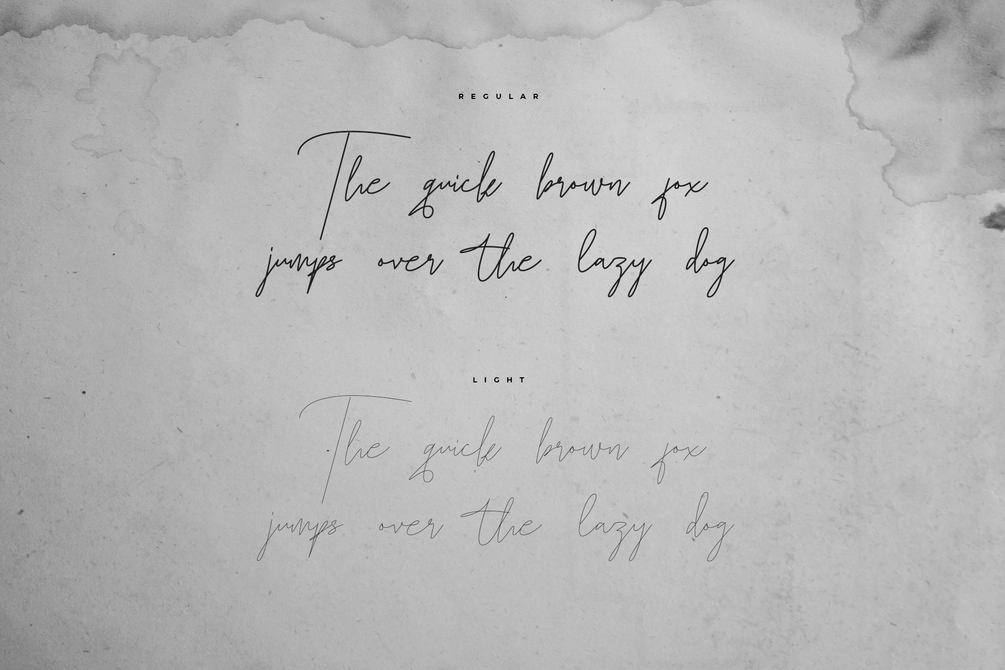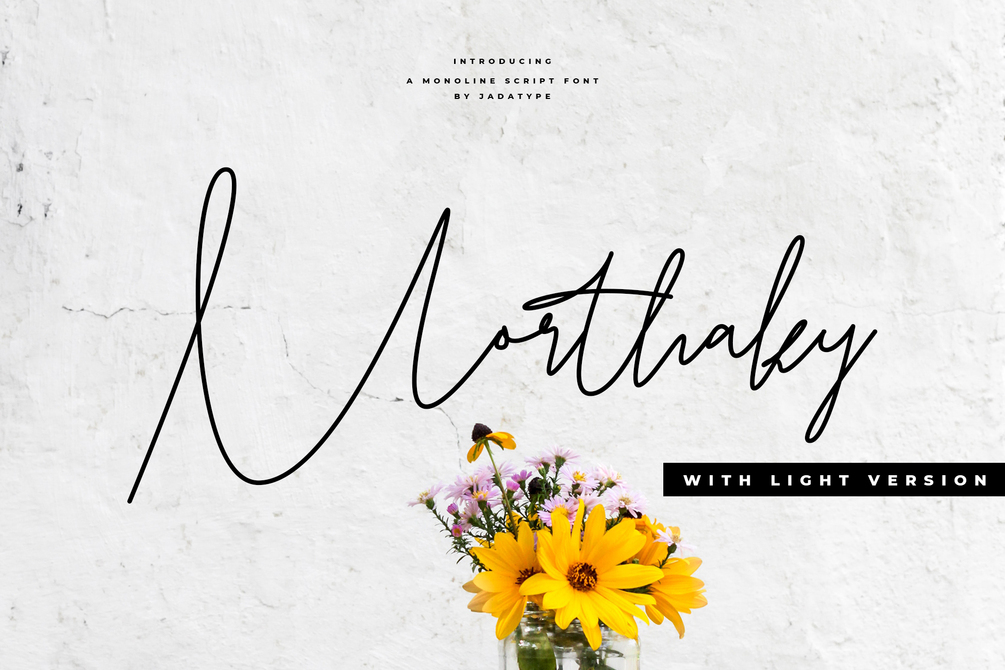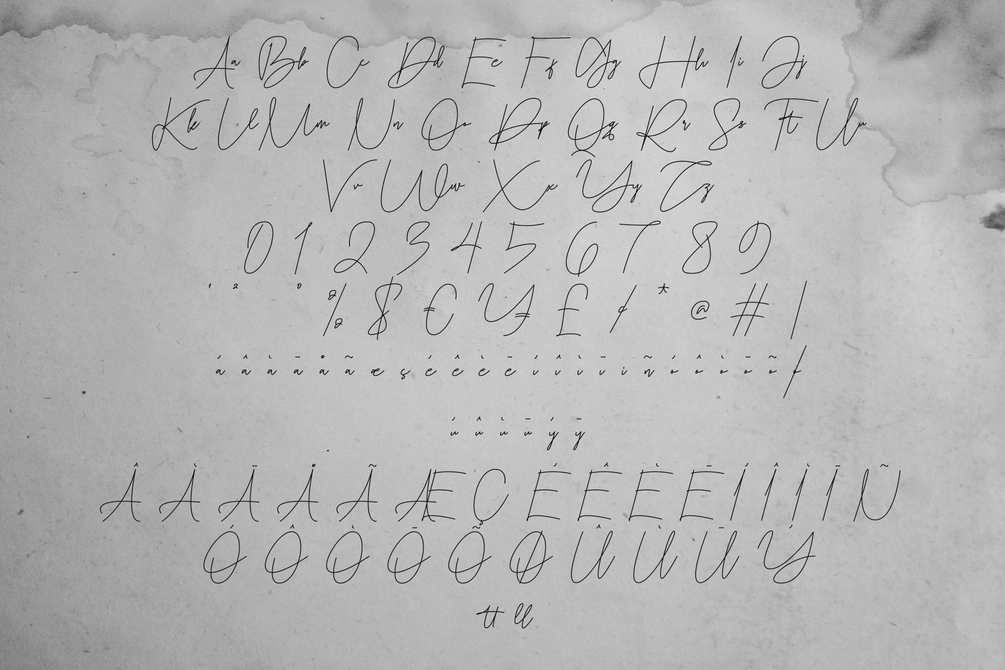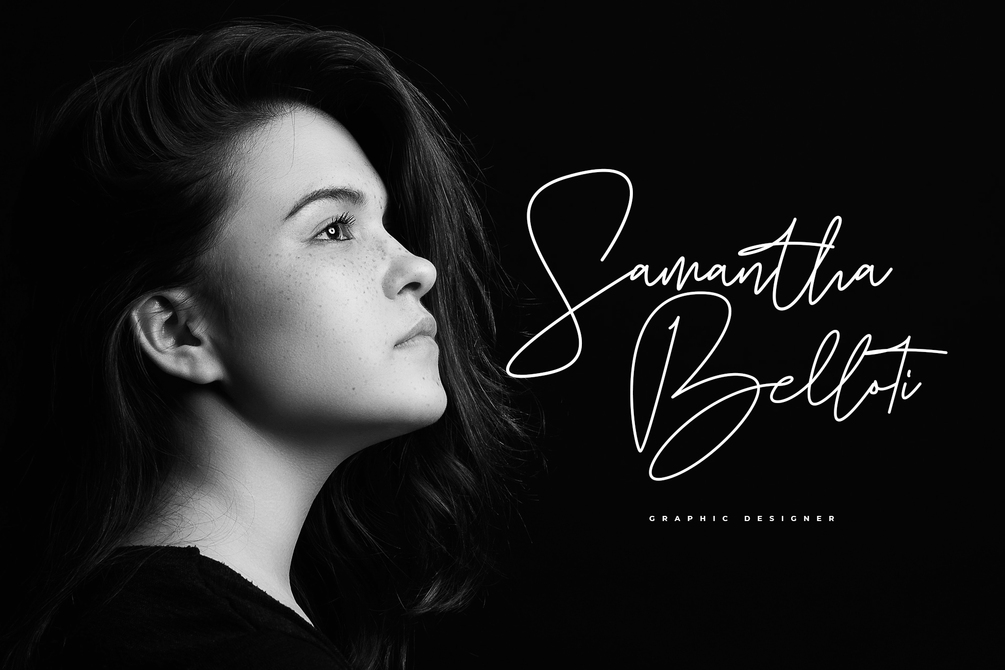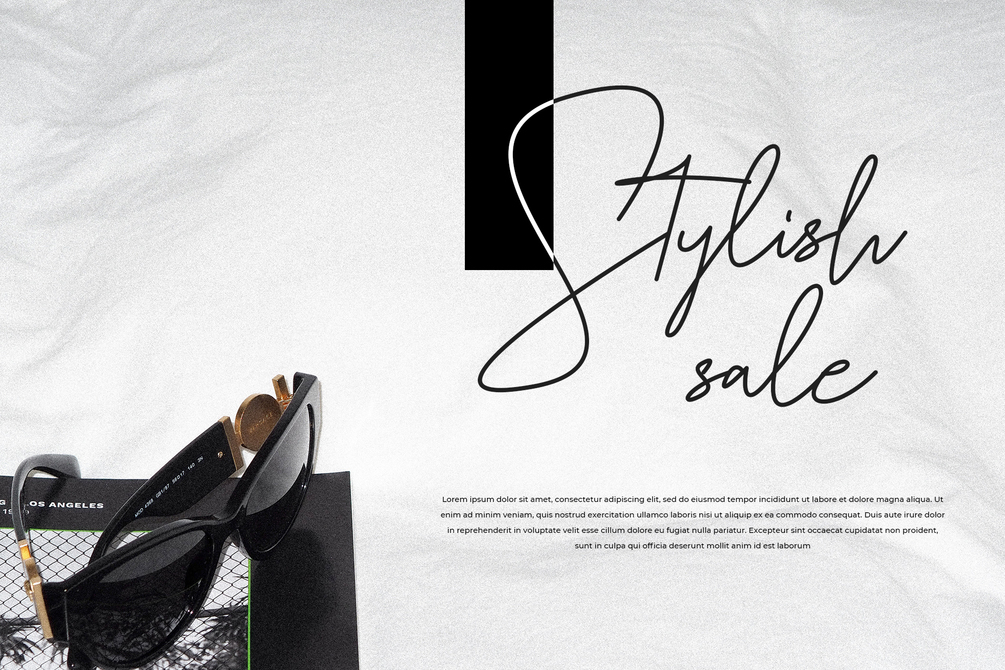
Morthaky Font
Morthaky is a monoline script with a handwritten style. suitable for social media, logotype, craft, advertisements, and so on. contains standard English letters, numbers, punctuation, and several accents that support multilingualism.
• Regular & Light